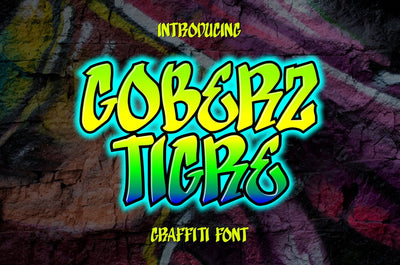
Goberz Tigre - Monoline Graffiti Font
"Goberz Tigre" is a monoline font with a graffiti theme. It is perfect for a wide range of urban or street-themed design projects, such as streetwear design, logo design, car/motosport decals, skateboard decals, and other similar designs. With its edgy appearance, "Goberz Tigre" brings a sense of energy and attitude to your designs. The font's monoline style that adds visual interest and makes your designs stand out. Whether you're looking to create a strong and impactful design or add a touch of urban style to your projects, "Goberz Tigre" is the font for you.
- Graffiti Characters looks